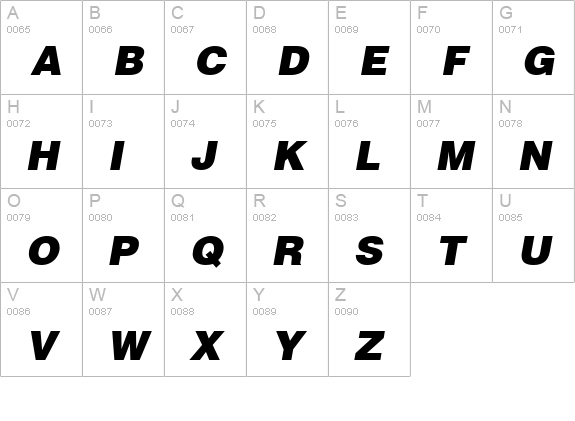
Airbus Special Font Details
Introducing Airbus Special Font, a versatile and modern typeface that exudes elegance and sophistication. This special font is perfect for a wide range of design projects, from branding to editorial to web design. With its clean lines and sleek appearance, Airbus Special Font adds a touch of refinement to any project. What sets Airbus Special Font apart is not only its striking aesthetics but also its accessibility - it is available for free download at FontsMarket.com. This means that you can elevate your designs without breaking the bank, making it an ideal choice for both professional designers and enthusiasts alike. Whether you're creating a stunning logo, designing a sleek website, or crafting eye-catching marketing materials, Airbus Special Font is sure to make a lasting impression. Download it today and take your designs to the next level!